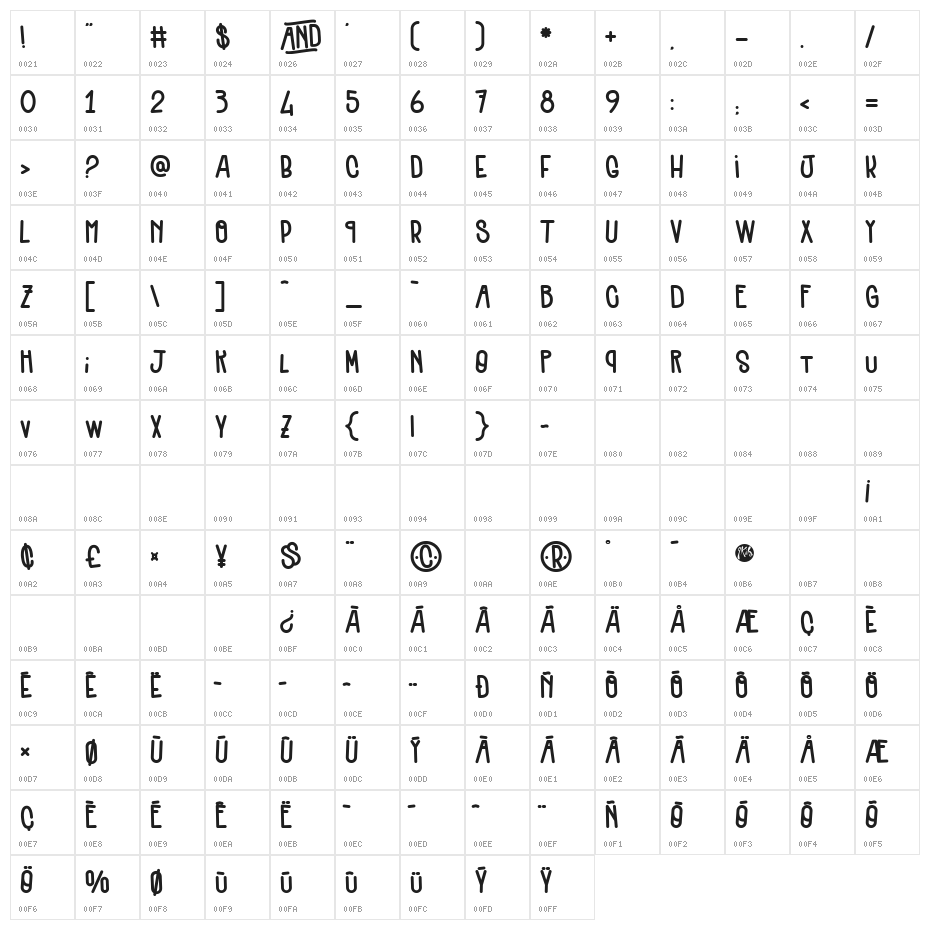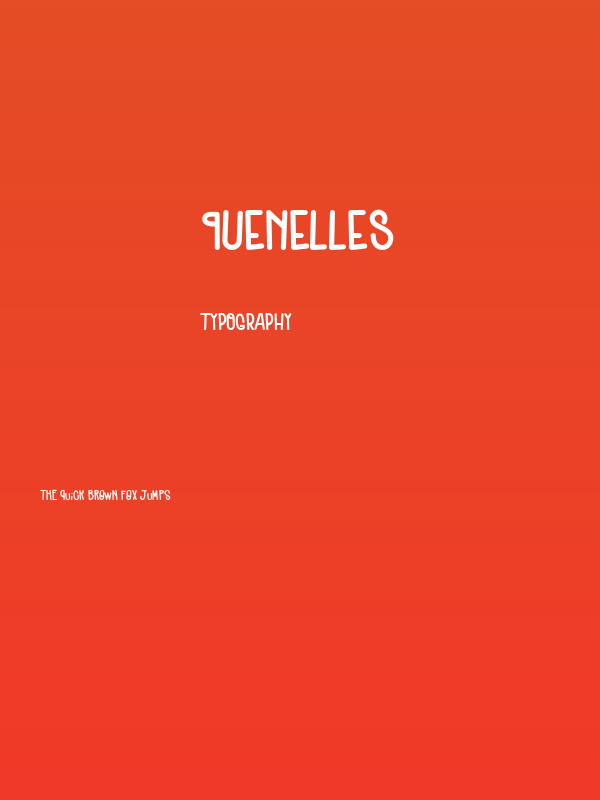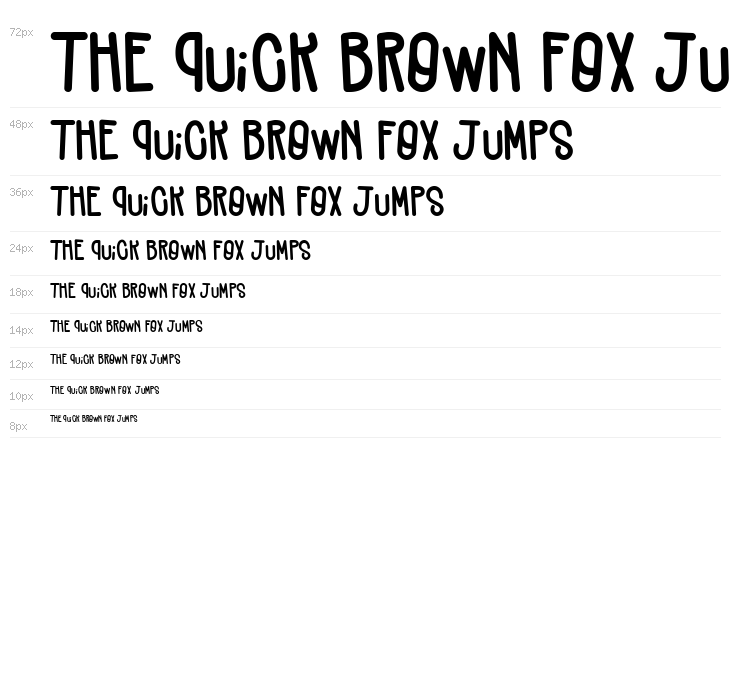
Quenelles Font
Quenelles Description
This playful and bold font features rounded, thick strokes that give it a friendly and approachable appearance. The characters are slightly condensed, with a consistent stroke width that maintains a uniform look across both uppercase and lowercase letters. The numbers and special characters share the same playful style, making it versatile for various uses. The font's design is reminiscent of hand-drawn lettering, adding a personal touch to any project. Its simplicity and readability make it suitable for both digital and print media, while the unique character shapes add a touch of whimsy.
| Overall Style | Playful, Hand-drawn |
| Proposed Projects | Ideal for children's books, playful branding, casual invitations, and social media graphics. |